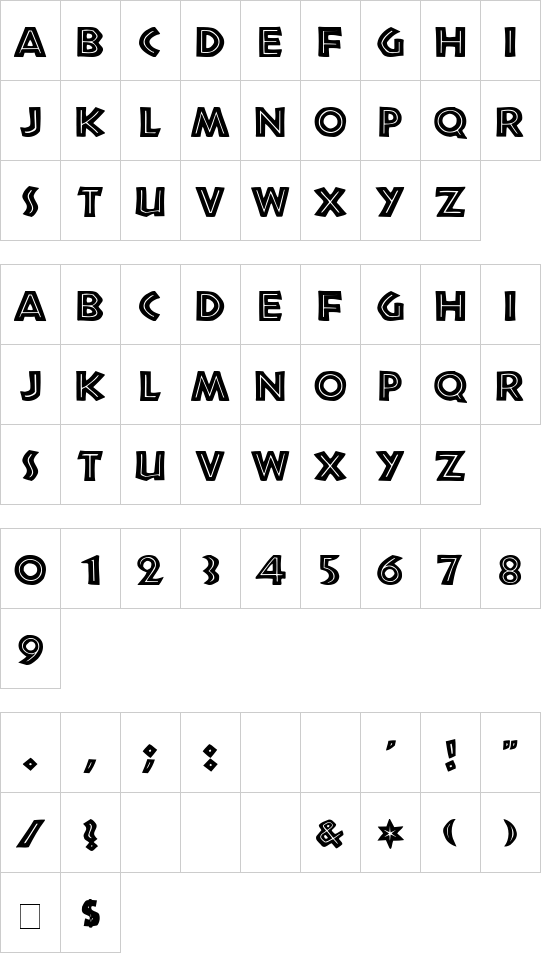
26 is an outline decorative font with a famous, stylized look and bold ornamental letterforms. The hollow shapes carry distinctive detail and confident proportions, blending a recognizable style with an eye-catching display presence. It reads as bold and crafted, made to stand out at a glance.